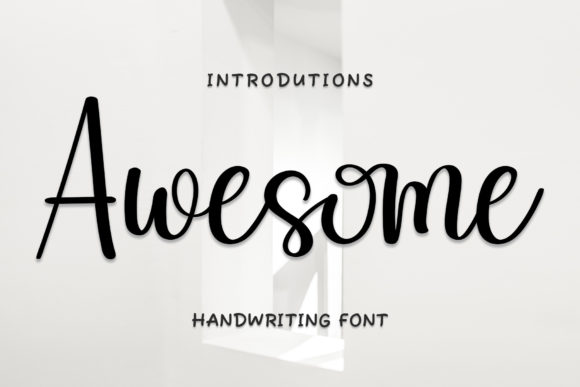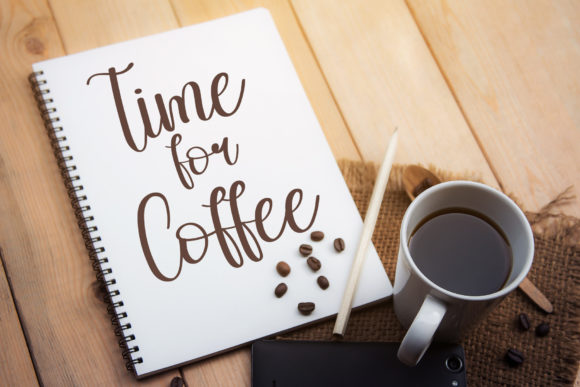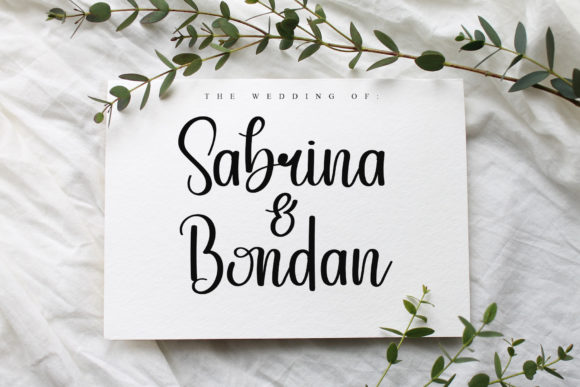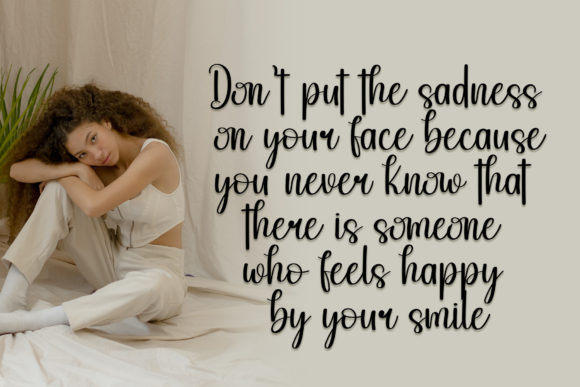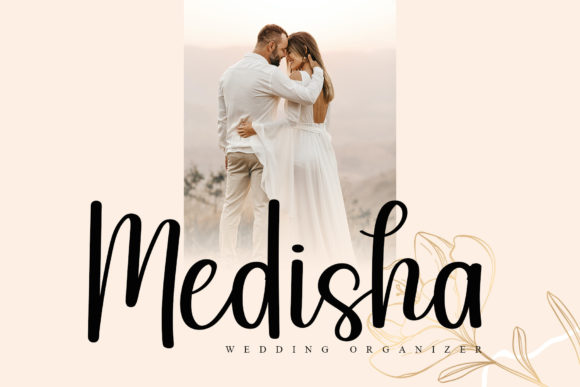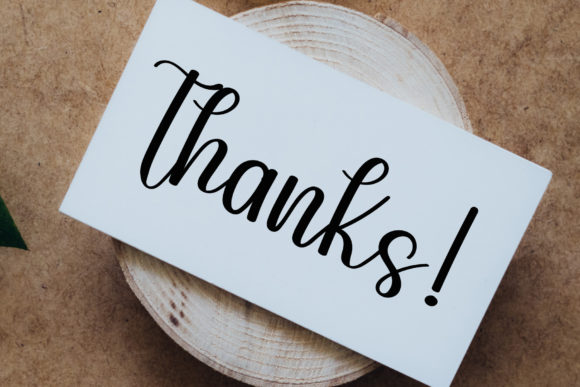
Awesome Font
About Awesome Font
“Awesome” emerges as an enchanting handwritten font that captivates with its unique charm. This versatile script font holds the potential to be applied across a wide spectrum of design applications, from greeting cards to headlines. Its presence is sure to infuse a romantic and captivating essence into your upcoming projects.
The allure of “Awesome” lies in its ability to evoke emotions and create an enchanting atmosphere. Its flowing strokes and intricate design elements contribute to an aesthetic that resonates with romance and visual appeal. This font seamlessly adapts to different contexts, ensuring its versatility shines through.
From enhancing the sentimentality of greeting cards to making headlines more captivating, “Awesome” becomes an essential tool. Its adaptable nature allows it to effectively convey different moods and themes, adding depth to your projects.
Incorporating “Awesome” into your design endeavors means embracing its enchanting attributes. By harnessing its unique charm, you’re enhancing the visual allure of your work and ensuring that your designs resonate effectively with your intended audience. This font becomes a versatile instrument for infusing your creations with a touch of enchantment, ensuring they leave a lasting impression.